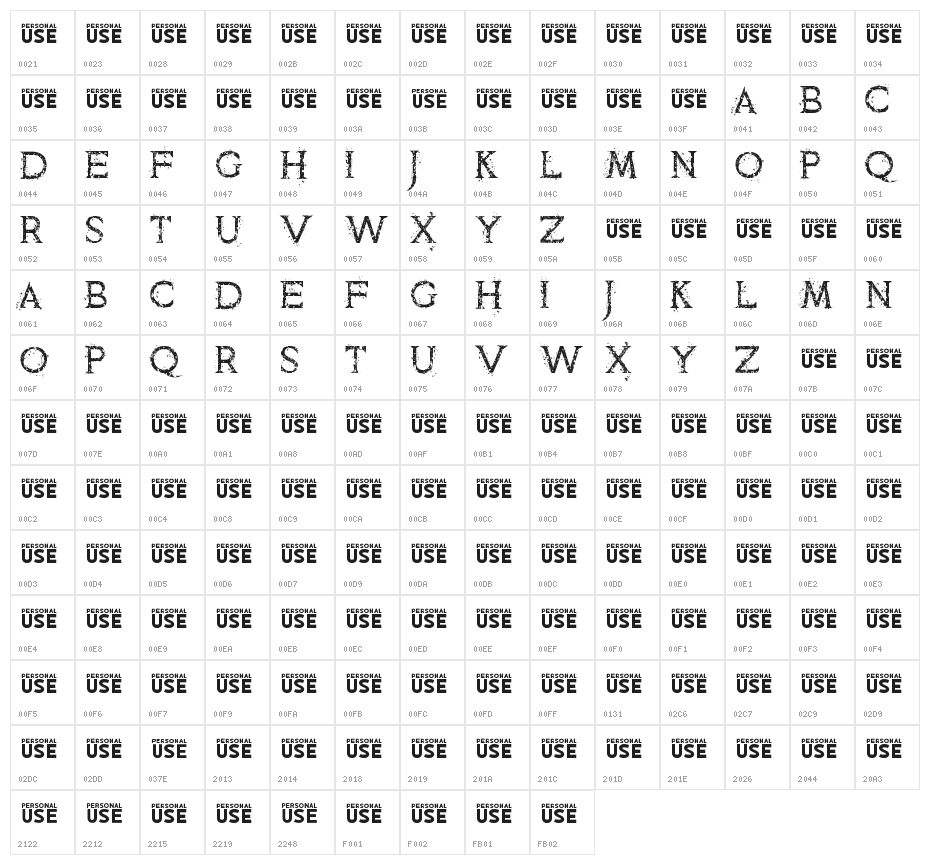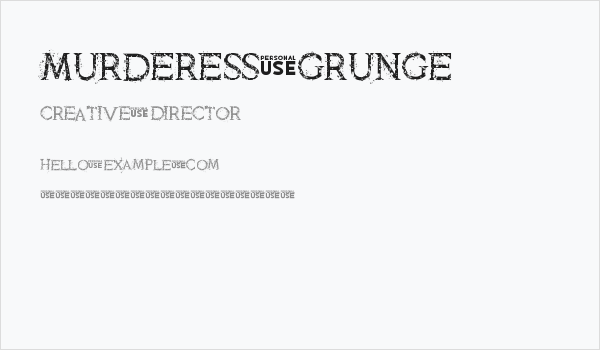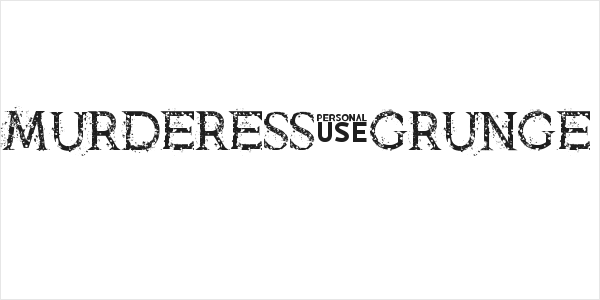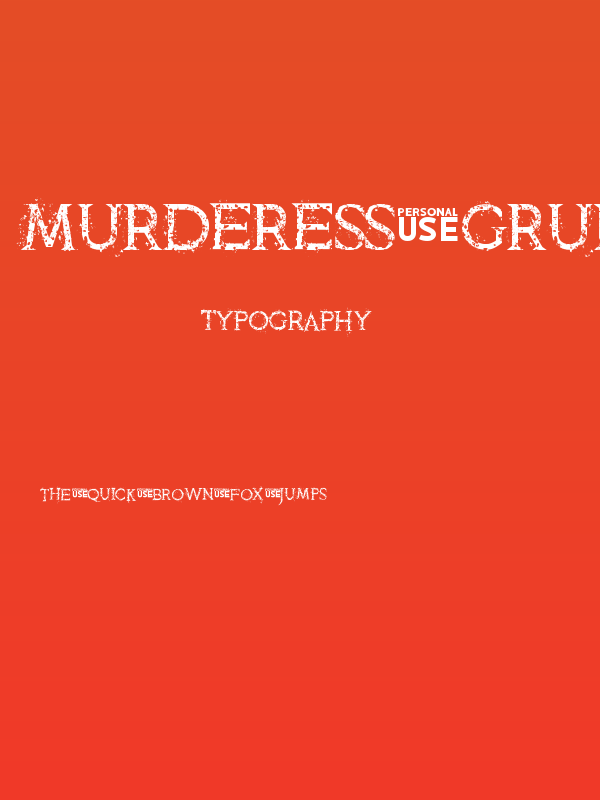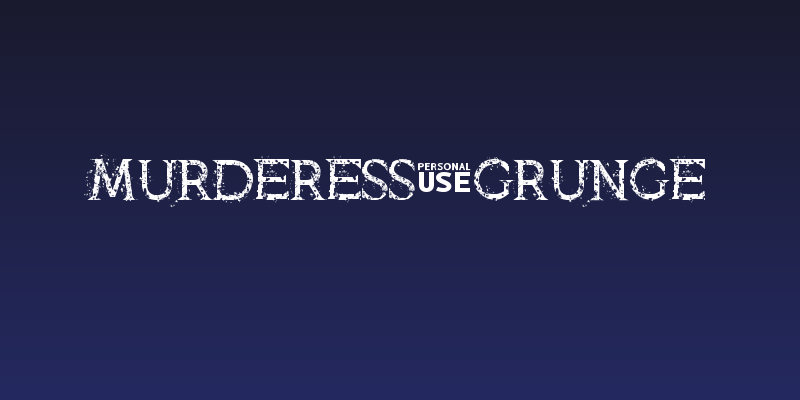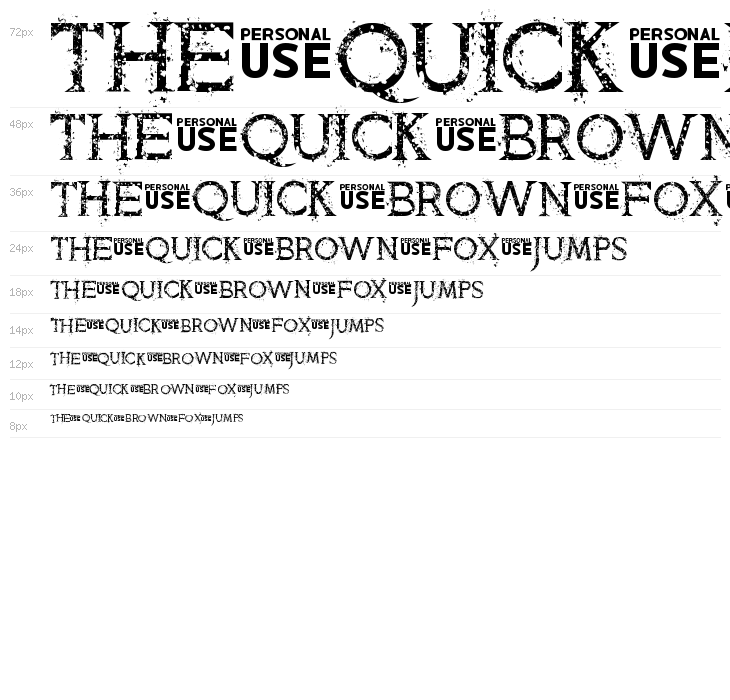
Murderess Grunge Font
Murderess Grunge Description
This font features a distressed, grunge aesthetic with a textured appearance that gives it a worn, vintage feel. The uppercase letters are bold and impactful, with rough edges and irregularities that add character and depth. The design is reminiscent of old, weathered typefaces, making it ideal for projects that require a gritty, edgy look. The font maintains a consistent weight throughout, ensuring readability despite its distressed style. Its unique appearance makes it stand out, perfect for creative and artistic applications.
| Overall Style | Vintage, Grunge |
| Proposed Projects | Ideal for album covers, posters, branding for edgy or alternative products, and any project needing a vintage or rebellious vibe. |